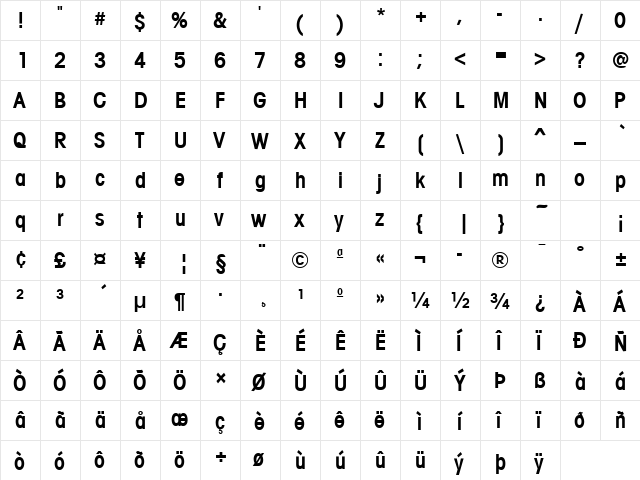
AvalonCond Bold
Design Context for AvalonCond Typeface
AvalonCond offers clean, dependable letterforms without strong stylistic allegiance, making it a practical choice for designers who need flexibility. Its bold stroke weight gives it real presence on the page. The condensed width makes it efficient for tight spaces without sacrificing legibility.